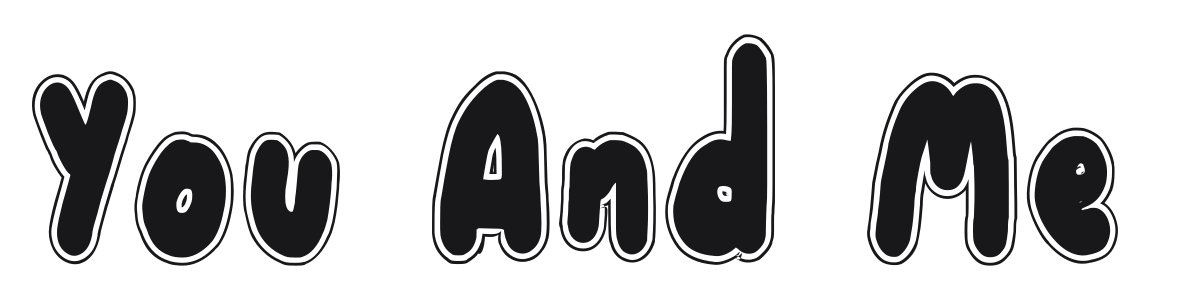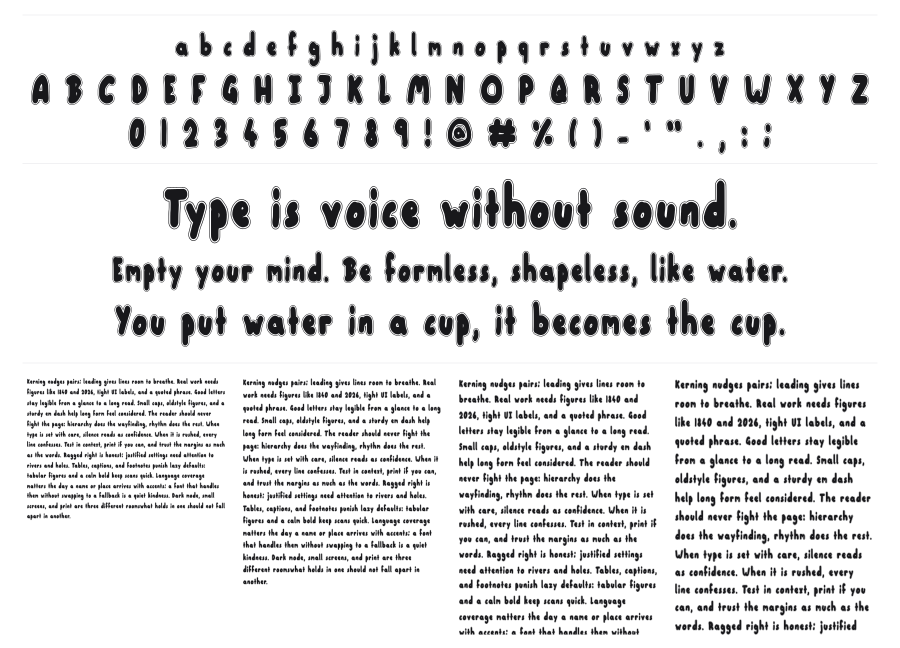
You And Me
by Midfont Studio
You And Me is a heavy bubble-style display font with inflated rounded forms and a built-in white inline outline that gives each character a layered, almost puffy three-dimensional quality. The design channels classic 1960s and 70s groovy lettering, all curves and no sharp edges. It brings immediate warmth and playful energy to posters, packaging, and casual branding.